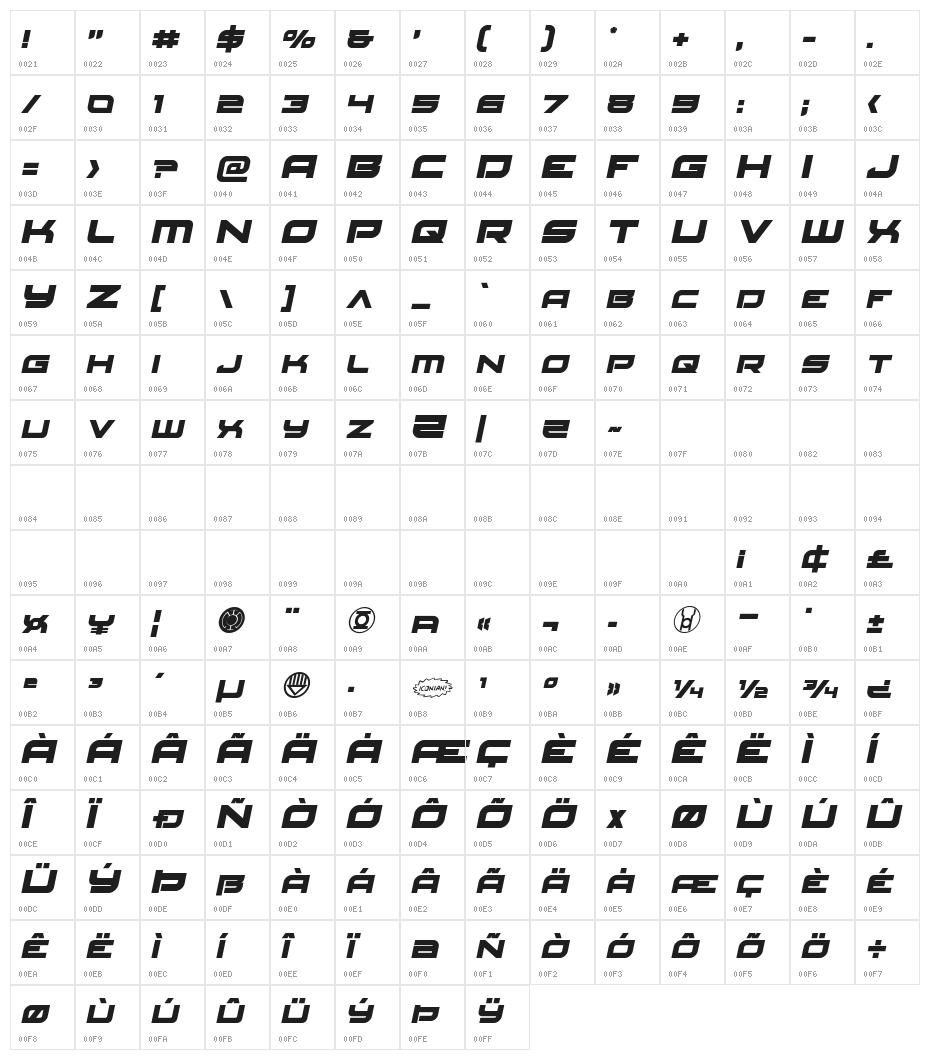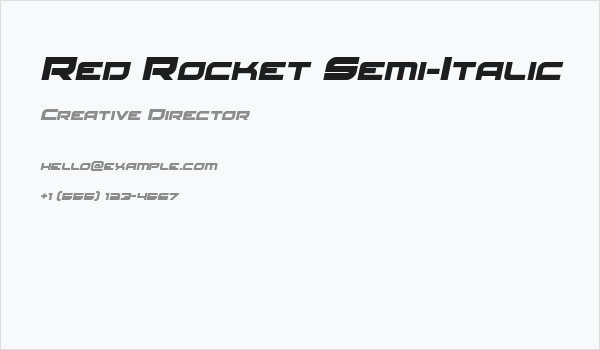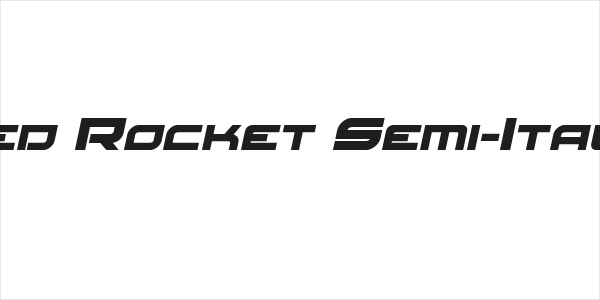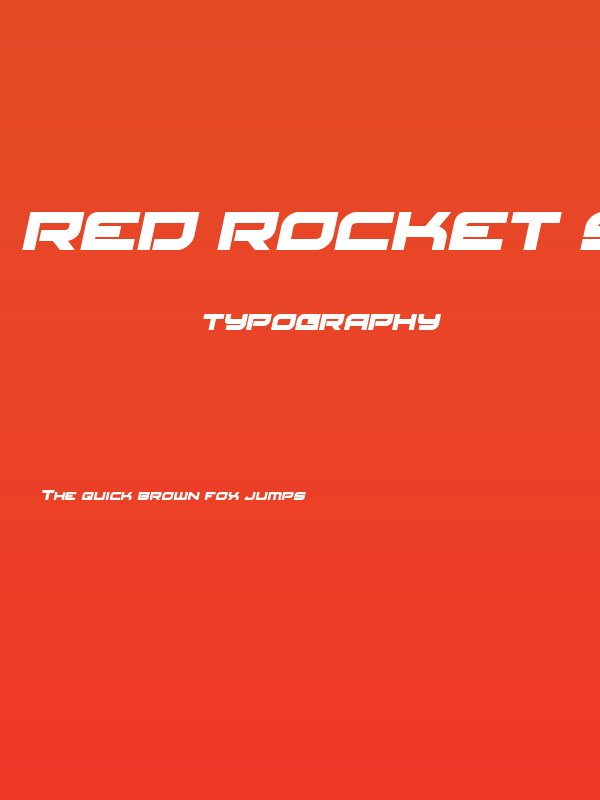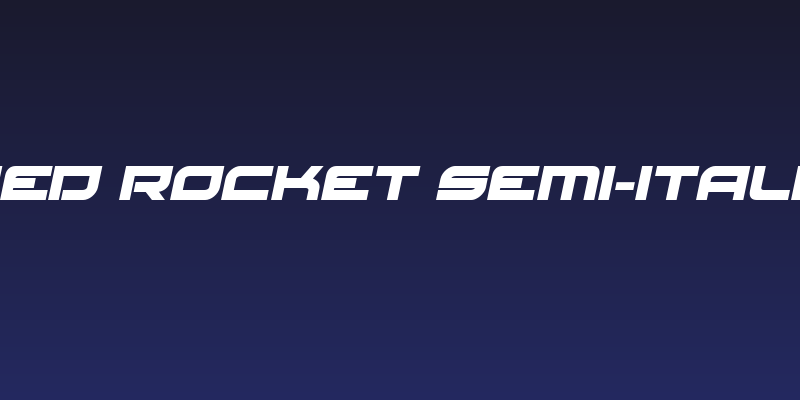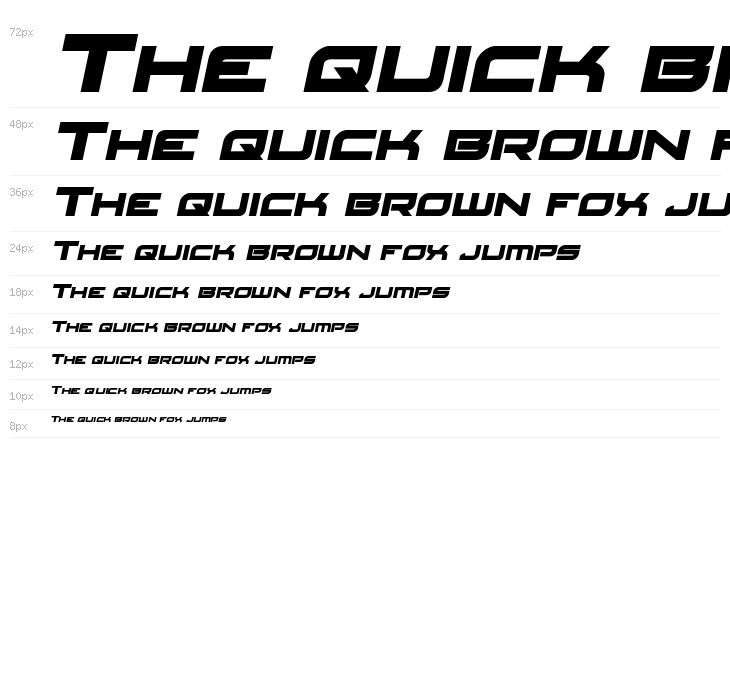
Red Rocket Semi-Italic Font
Red Rocket Semi-Italic Description
This font features a dynamic and futuristic design, characterized by its bold and angular letterforms. The semi-italic slant adds a sense of motion and speed, making it ideal for projects that require a modern and energetic aesthetic. The uppercase and lowercase letters maintain a consistent style, with sharp edges and a slightly condensed form. The numerals and special characters are designed to complement the overall look, ensuring uniformity across all text elements. The font's unique style makes it suitable for a variety of creative applications.
| Proposed Projects | Ideal for branding, sports team logos, video game titles, and sci-fi themed designs. |